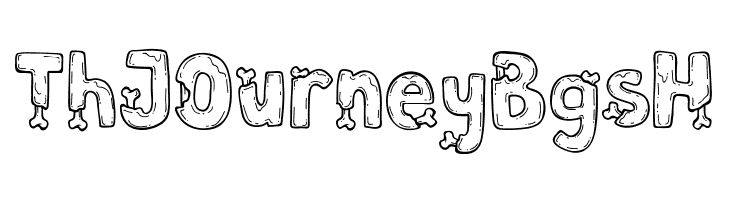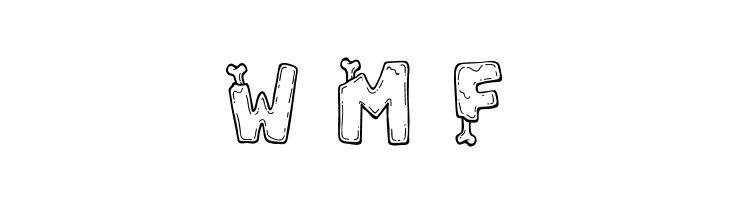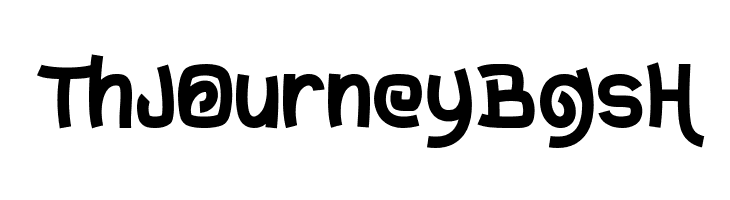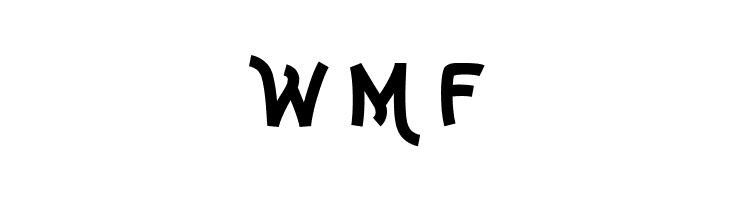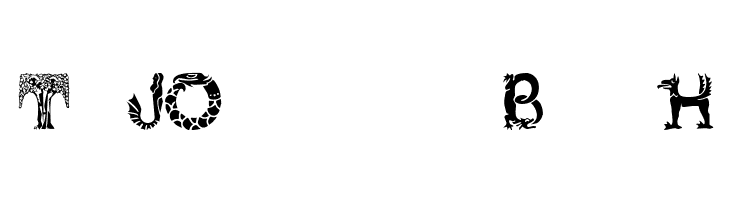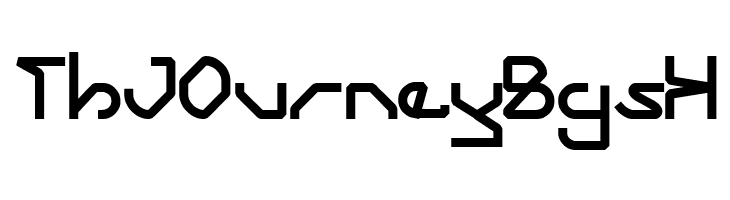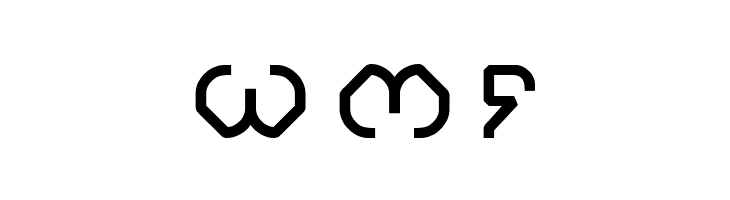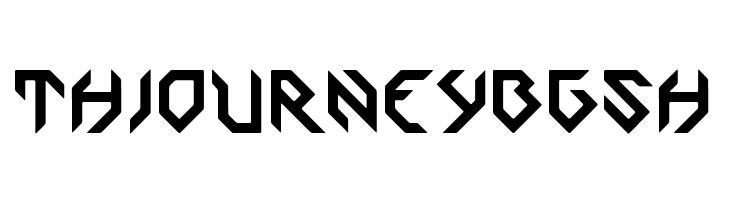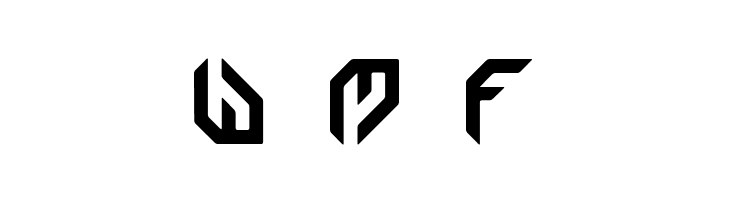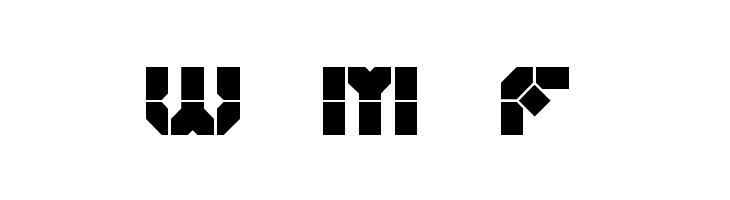
• Zoom Runner Title
A bold, geometric font with a futuristic, digital style.
• Zoom Runner Title Italic
A bold, geometric, and futuristic italic font with high contrast and tight spacing.
• Zooma
A bold, playful font with quirky, rounded characters and a whimsical style.
• Zoombieland
( Fonts by Mehibi )
A playful, bone-themed font with a spooky, hand-drawn style.
• Zoomgroove
• ZOOMING track
A futuristic, geometric font with sharp angles and a bold style.
• ZOOMING track
A futuristic, geometric font with sharp angles and bold presence.
• Zoomorphica